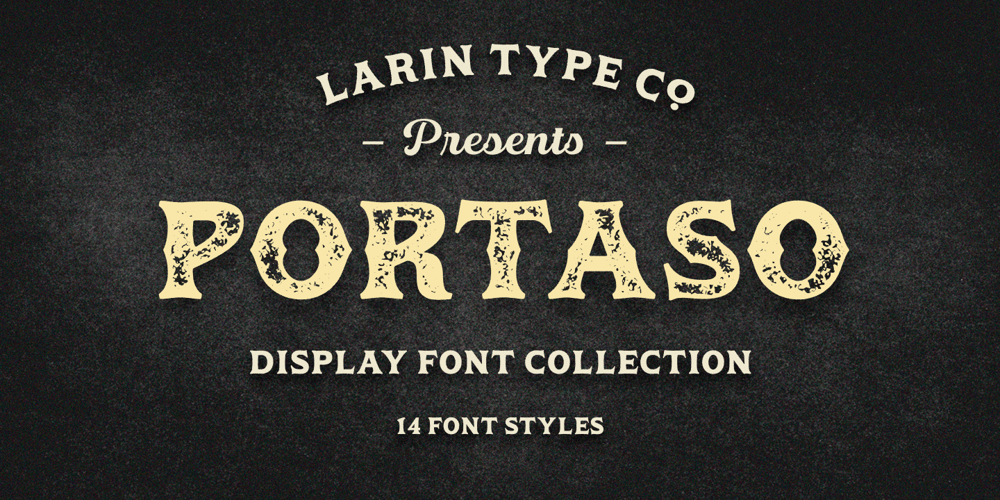
Portaso Font Family was designed by Pavel Larin and published by Larin Type Co. Portaso contains 14 styles and family package options. PORTASO This is a vintage display font inspired by signage, logos in the style of the wild west of the old time. This is a great find for creating logos, various kinds of designs in vintage and wild West style. Portaso font family has only Capital letters and alternates to them. Also the Stamp style has a different texture for upper and lowercase.This collection includes 14 font styles: regular, rough, two shadows for regular style and two shadows for rough style and stamp style, also vintage, vintage rough, two shadows for vintage style and two shadows for vintage rough style and stamp style,